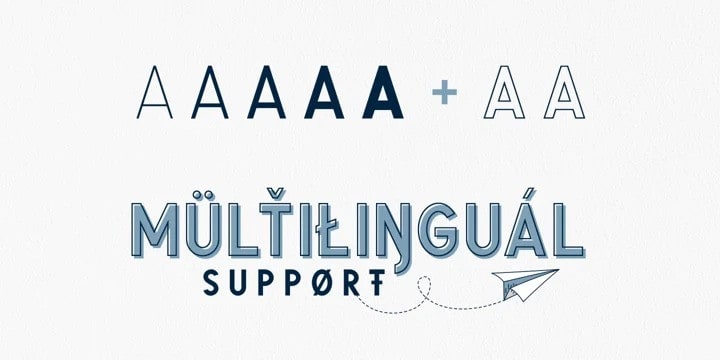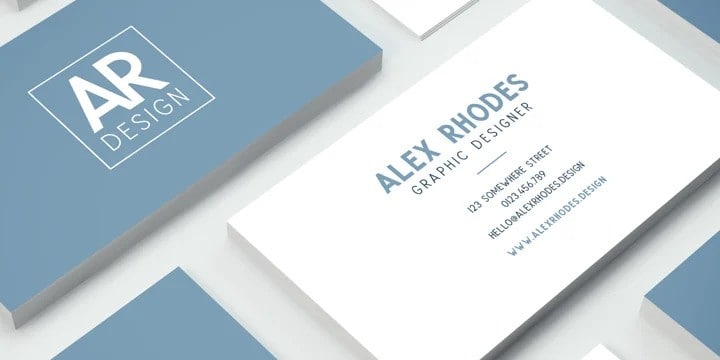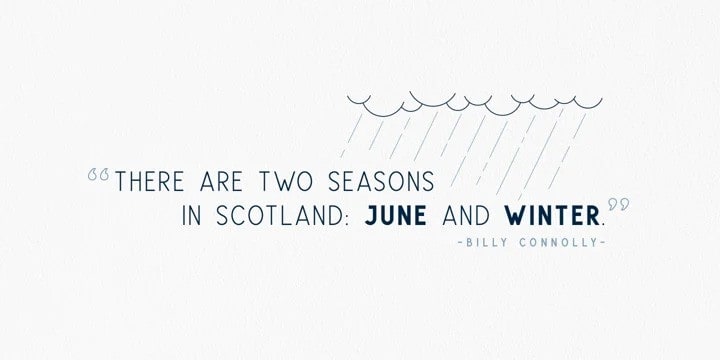
Glaschu Sans Serif Font
Glaschu Sans Serif Font is perfect for your up coming projects. This typeface is designed and shared by Braw Type. A modern, uppercase typeface which comes in 5 font weights with 2 additional outline styles. It’s clean, crisp edges and bold appearance makes it a perfect choice for headings, branding, signage, advertising, magazine layouts and more. Combine the outline styles with Glaschu ExtraBold to go even more creative with your lettering!